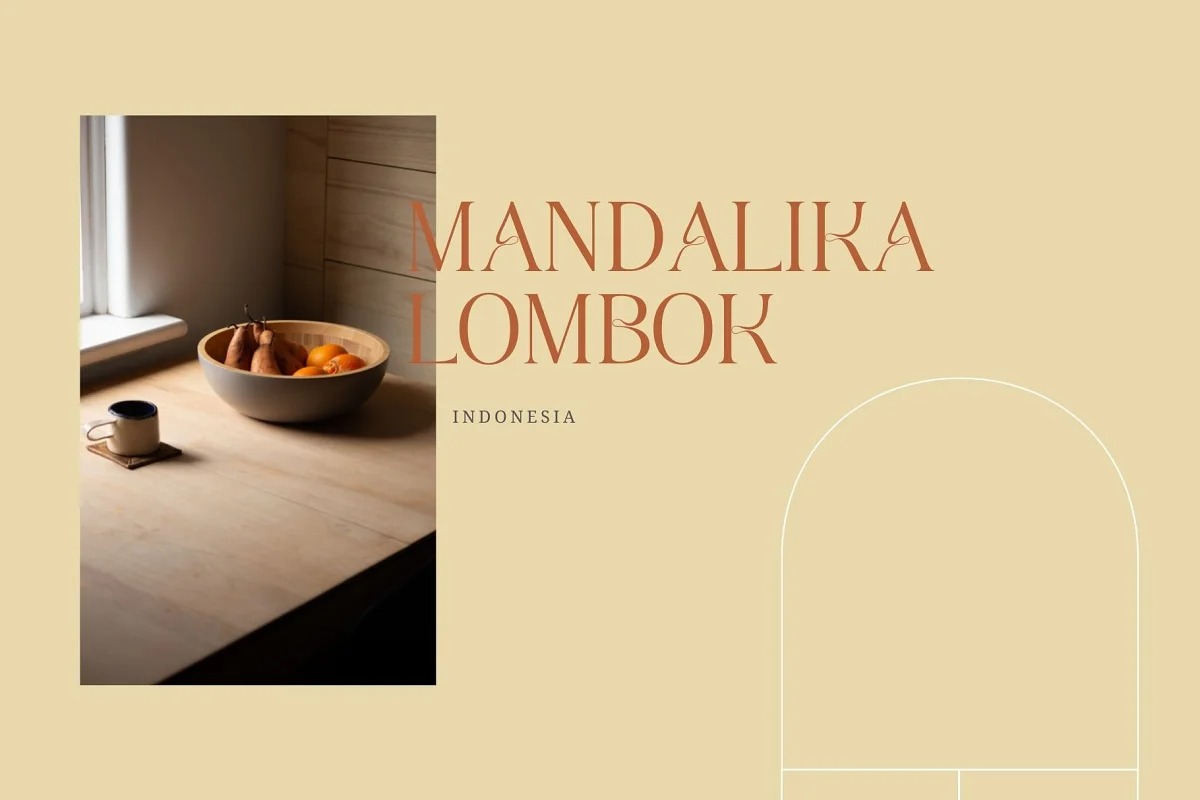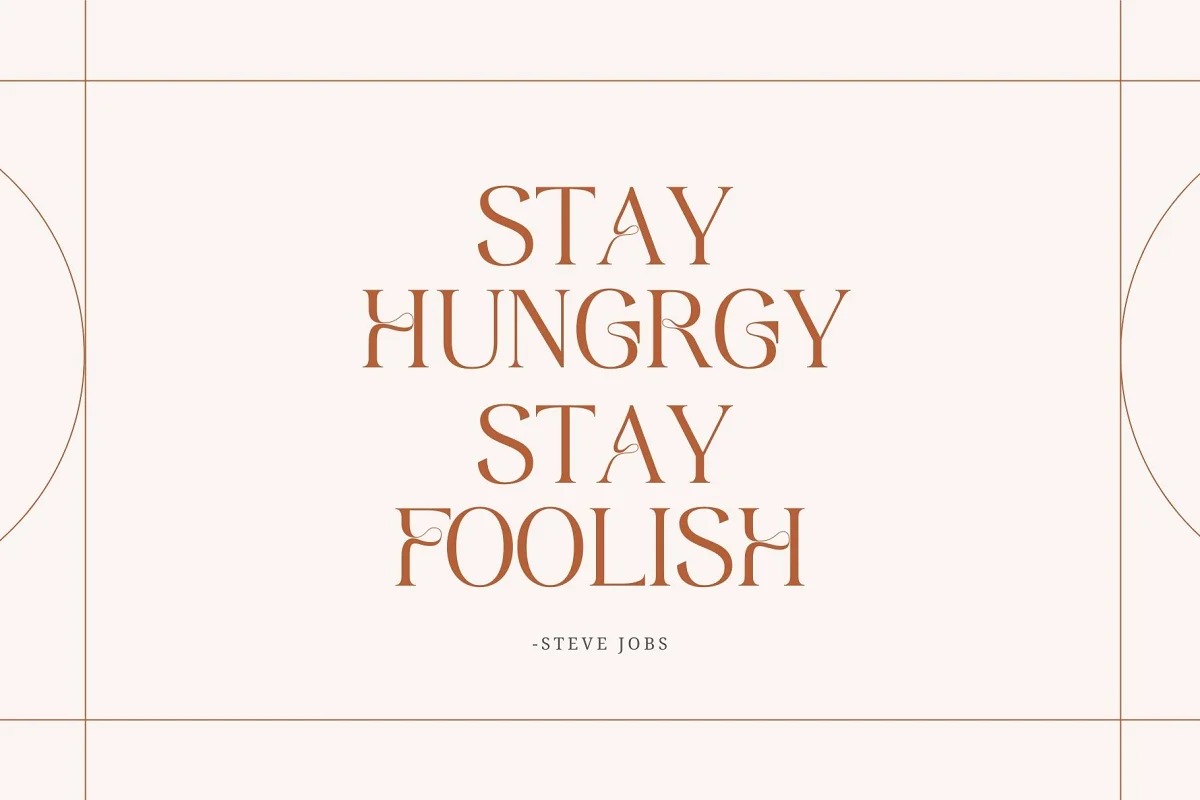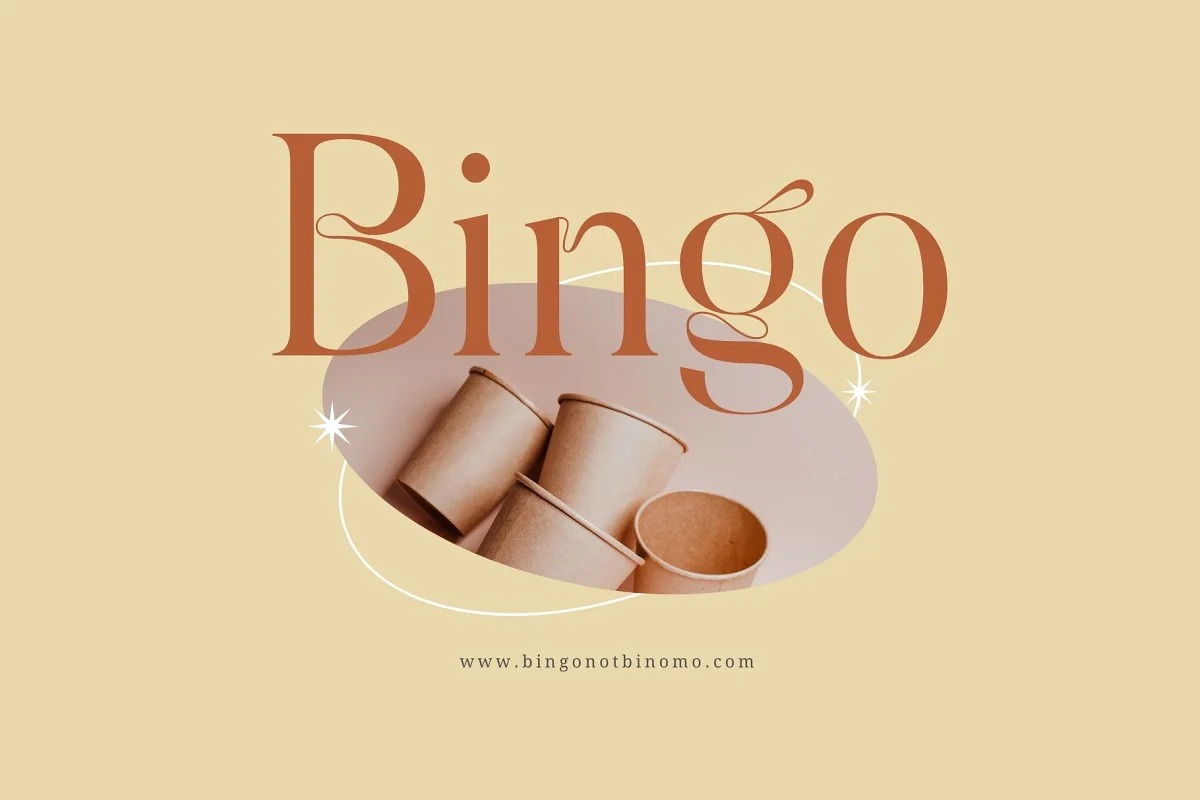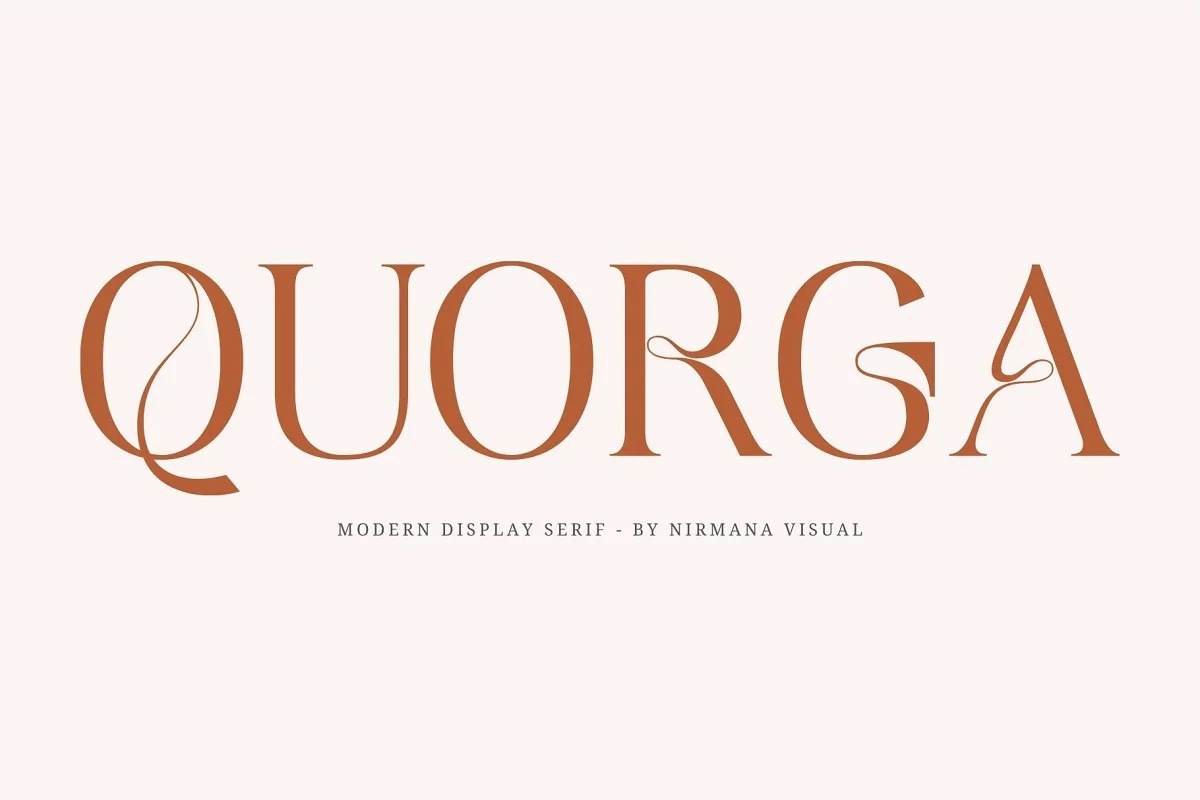
Quorga Serif Font
This typeface is a modern and elegant serif with incredible unusual lines that makes it far from the typical classic serif. Font is an open type with clean shapes and precise kerning. This font is perfect for fashion related branding or editorial design and displays both masculine and feminine qualities.